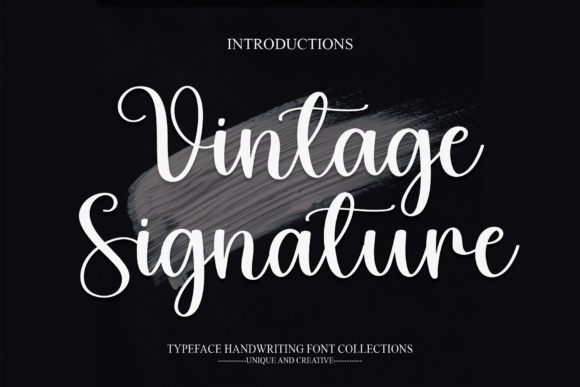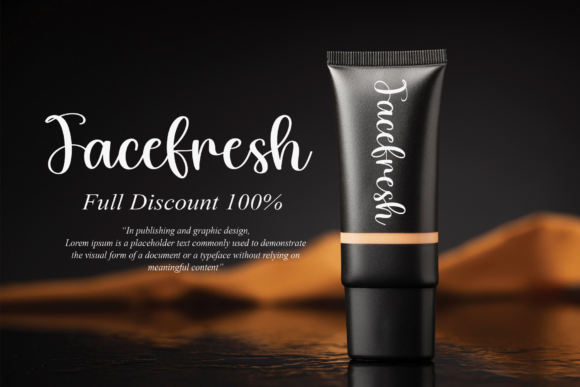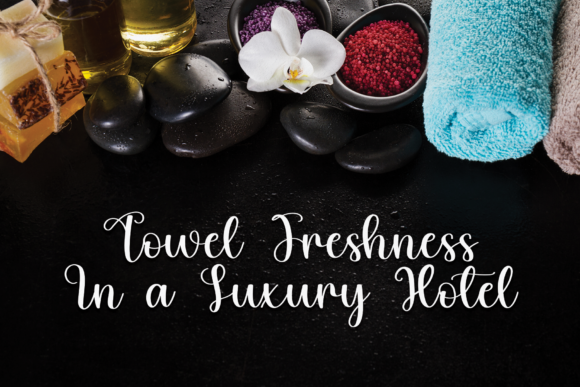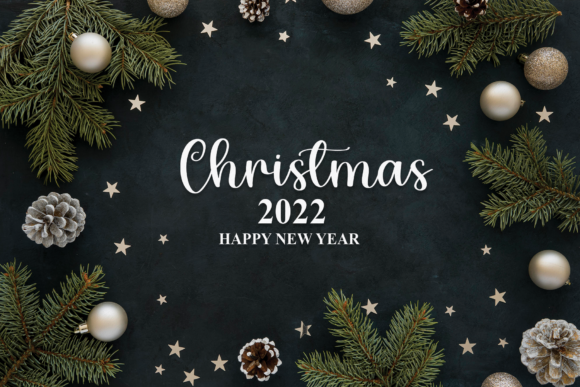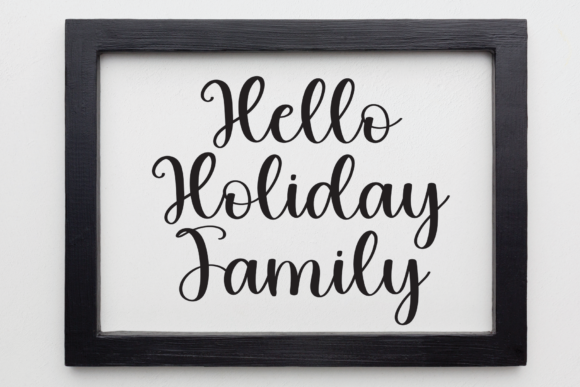
Vintage Signature Font
About Vintage Signature Font
Vintage Signature feels equally charming and elegant. It looks lovely on wedding invitations, thank you cards, quotes, greeting cards, logos, business cards and every other design which needs a customized touch.